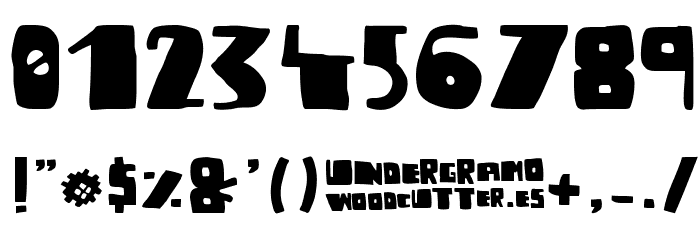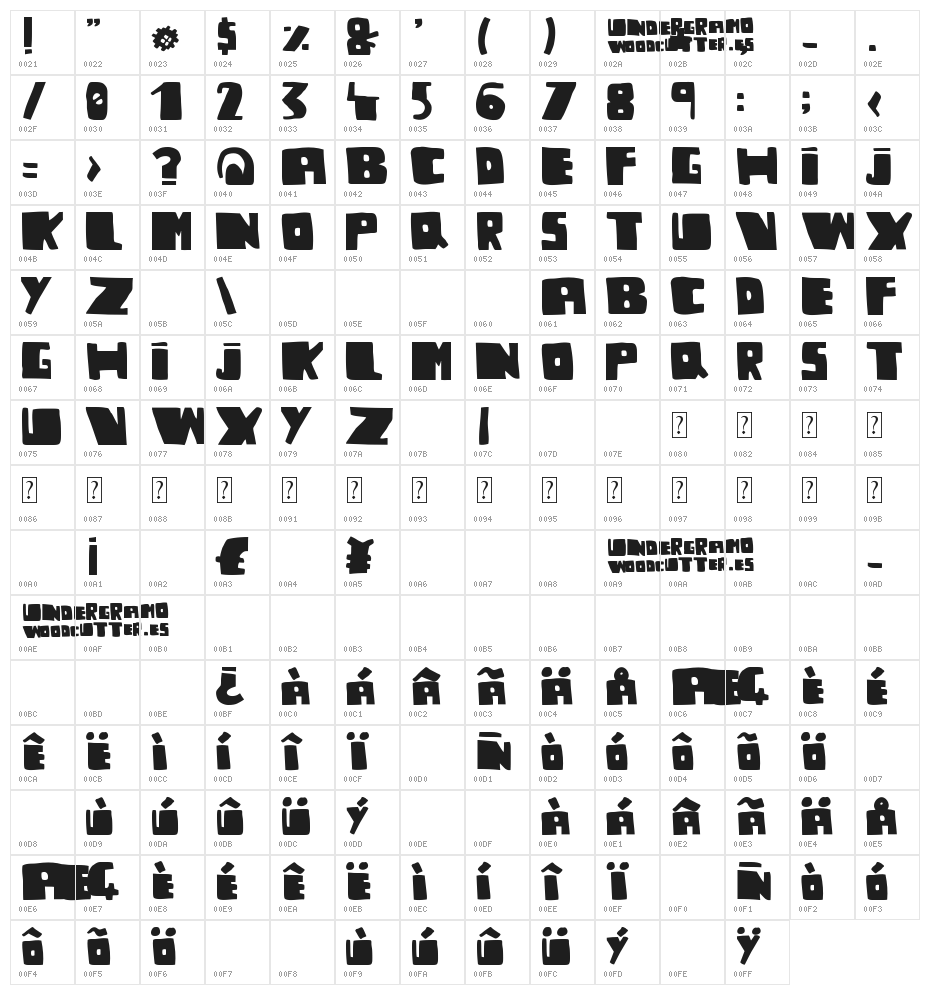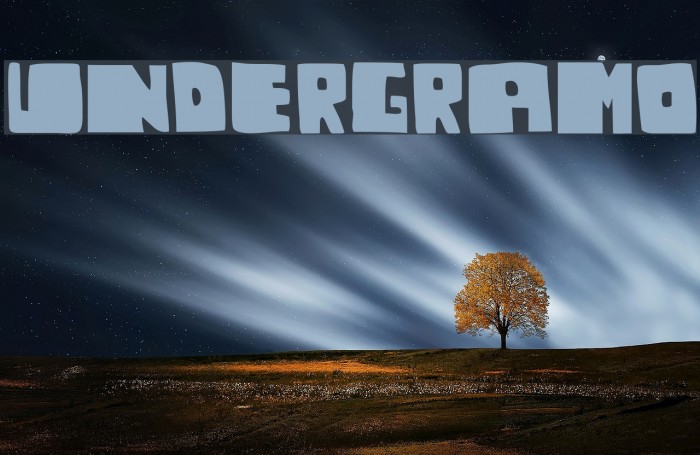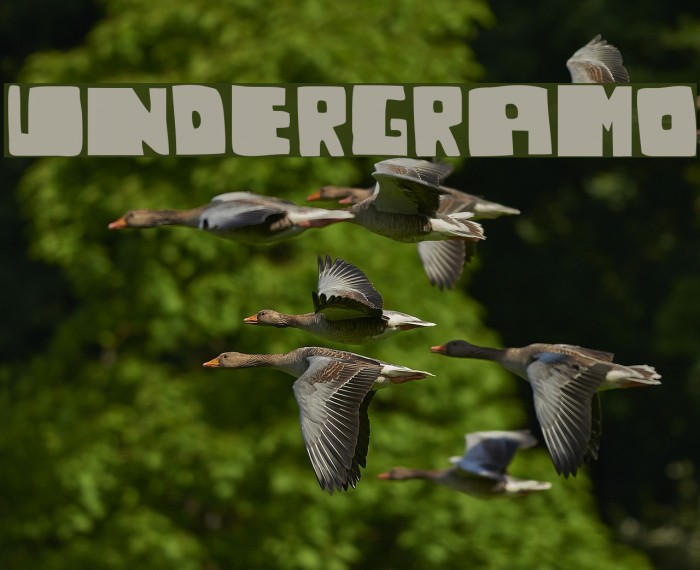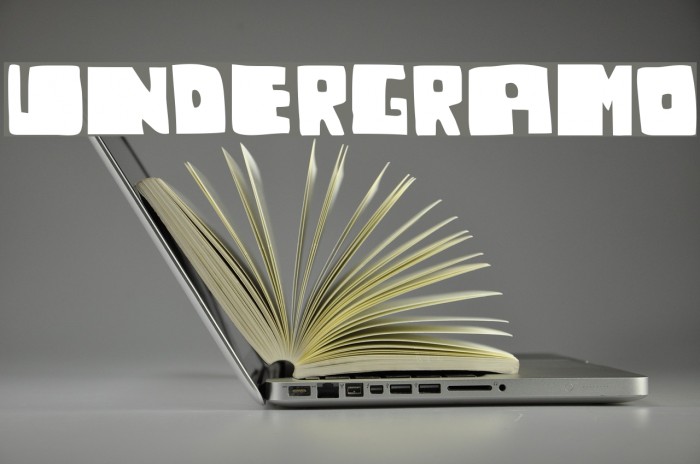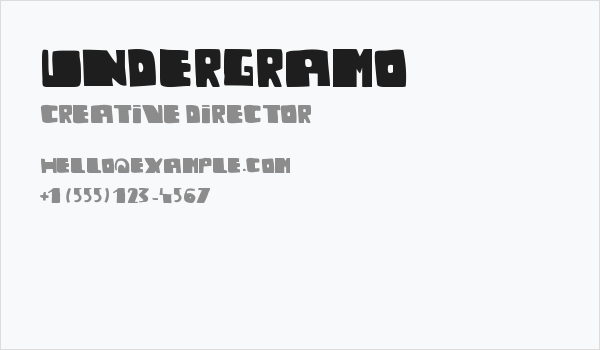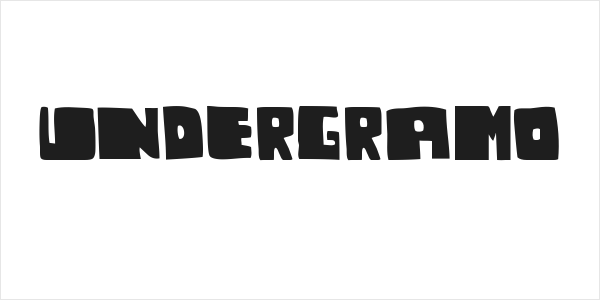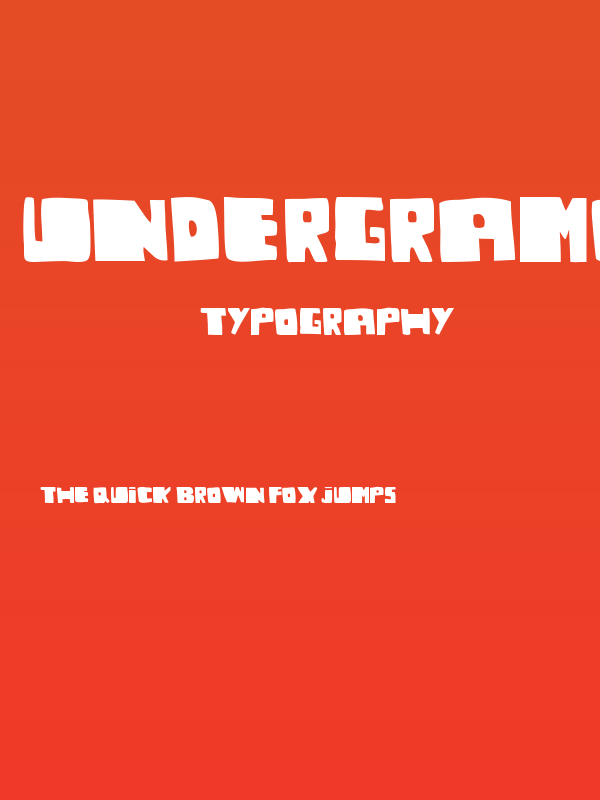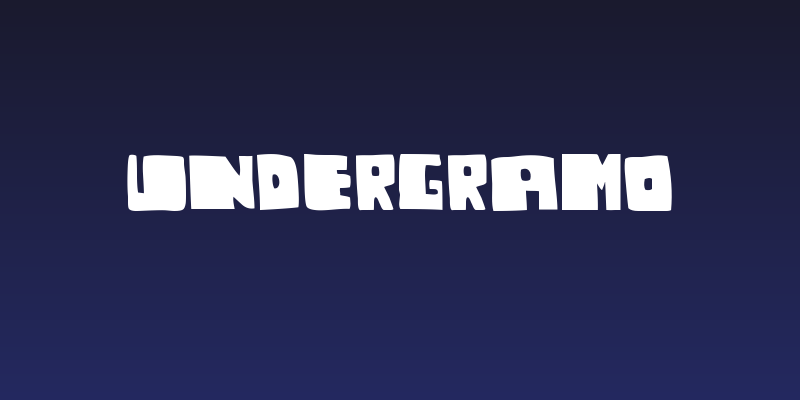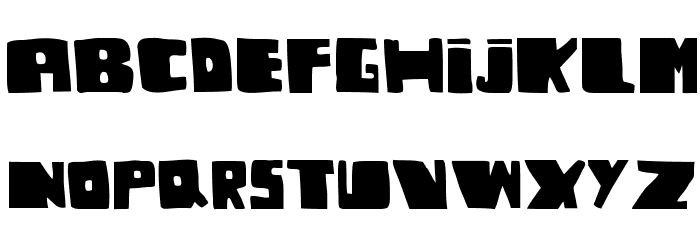
undergramo Font
undergramo Description
This font features a bold and chunky design with a playful and slightly irregular style. The characters are heavily weighted, giving them a strong presence on the page. The strokes are thick and consistent, with minimal contrast, creating a uniform appearance. The overall style is modern and decorative, with a quirky and informal vibe. The characters are tightly spaced, enhancing the boldness and making it suitable for eye-catching designs. The font includes a full set of uppercase and lowercase letters, numbers, and a variety of special characters, making it versatile for various design needs.